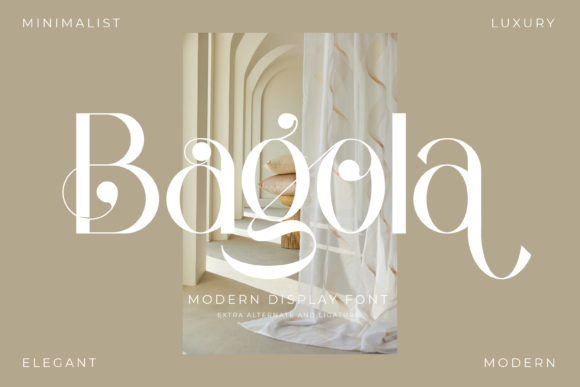
Introducing Bagola, the extraordinary serif font that will ignite your designs with its timeless elegance. Crafted with meticulous care by Storytype Studio, Bagola is a masterpiece of digital typography, designed to elevate your creative visions.
Its versatility knows no bounds, making it the perfect choice for a vast array of projects. Whether you're crafting captivating website titles, sophisticated logos, or eye-catching social media posts, Bagola seamlessly adapts to suit your every need.
With its crisp and clean lines, Bagola exudes an air of sophistication that will enhance the impact of your message. Its graceful curves and delicate serifs add a touch of charm, creating a font that is both visually stunning and highly legible.
But Bagola is more than just beautiful – it's also incredibly fun to use. Its PUA encoding grants you effortless access to a treasure trove of glyphs and swashes, empowering you to unleash your imagination and add a touch of flair to your designs.
Indulge in the endless possibilities that Bagola offers. Let its enchanting forms captivate your audience, leaving a lasting impression that will resonate with them long after they encounter your creations. Join the ranks of discerning designers and creatives who have fallen in love with Bagola's timeless allure, and elevate your design game to unparalleled heights.